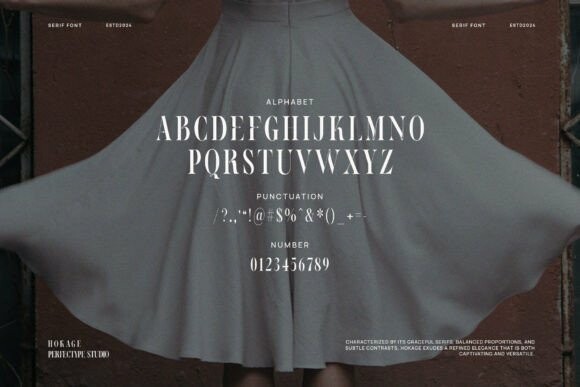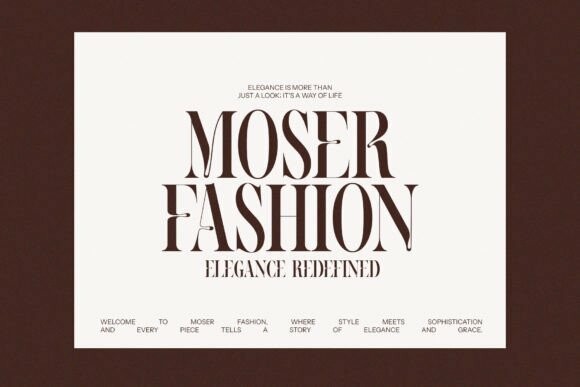
Hokage Font
Hokage Font is a stylish serif typeface that looks elegant and sophisticated. Its letters have smooth curves and sharp edges, making it perfect for classy designs like invitations, logos, and magazines.